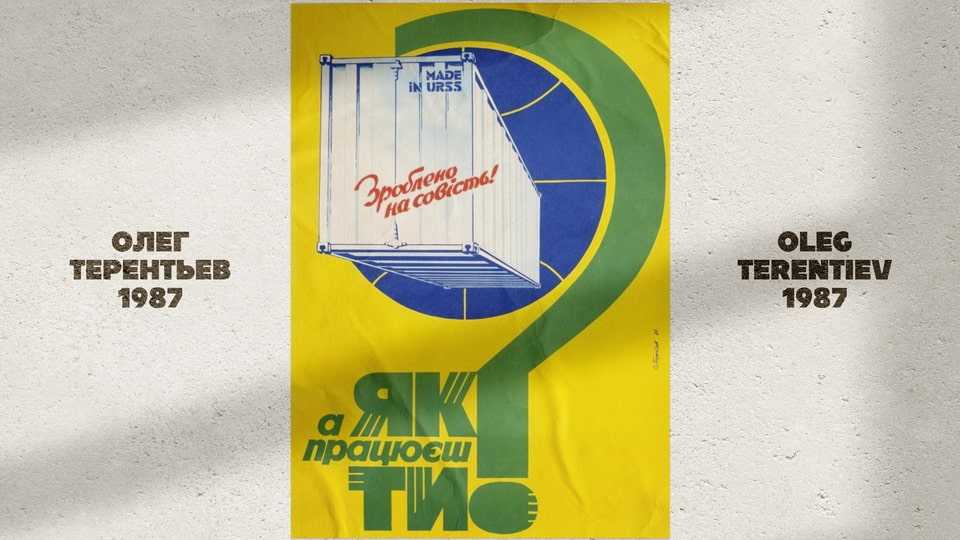
Download Terentiev SP font, a display typeface created under the inspiration of the lettering from Oleg Terentyev’s 1987 poster.
Designer: Sasha Pavljenko